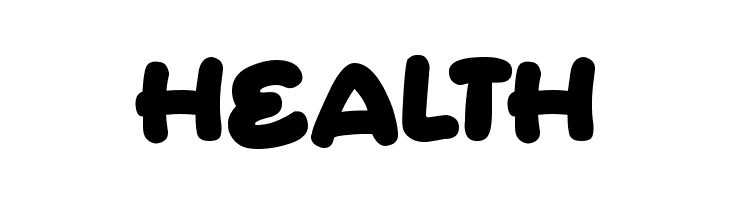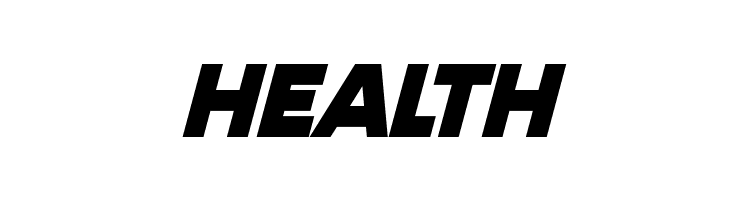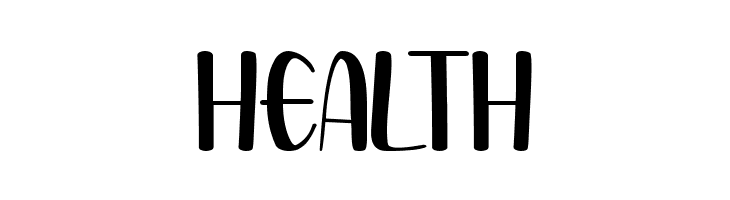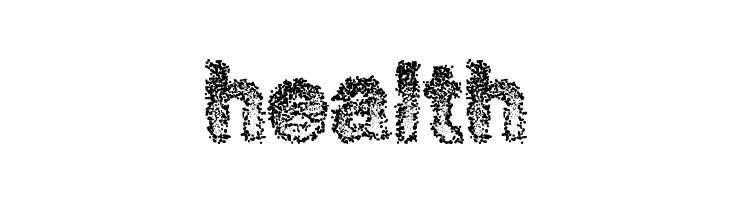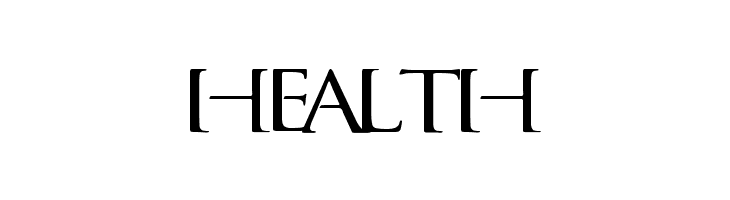
A dynamic italic font with sharp, angular strokes and a modern, elegant style.
A modern, artistic font with elegant curves and distinctive serifs.
A dotted, textured font with a playful and abstract style.
An elegant and playful decorative font with ornate uppercase letters and stylish lowercase characters.
A playful, bold font with rounded, bubbly characters.
A bold, italic font with a dynamic, modern style and uniform stroke thickness.
A lively, cursive font with interconnected letters and medium contrast, perfect for elegant projects.
A bold, distressed font with geometric shapes and rough edges.
A playful, handwritten-style font with bold, slightly condensed characters.
Bold, energetic handwritten script font.